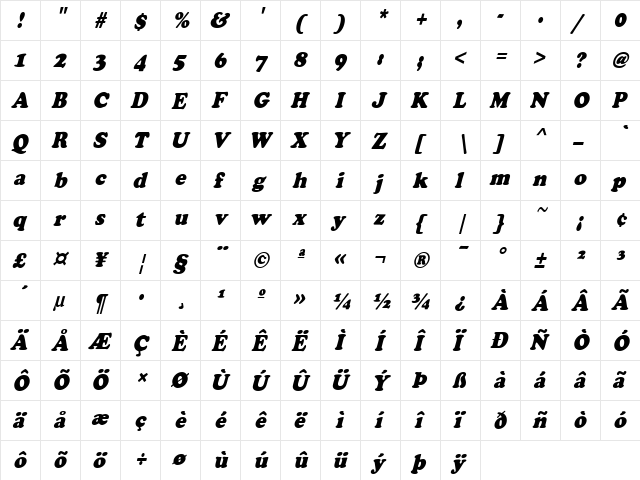
CooperCndObl Heavy Font Preview
CooperCndObl Heavy
Design Context for CooperCndObl Typeface
CooperCndObl offers clean, dependable letterforms without strong stylistic allegiance, making it a practical choice for designers who need flexibility.
Pro Tip: Pair CooperCndObl with a font of contrasting weight or personality to build a more expressive typographic hierarchy.